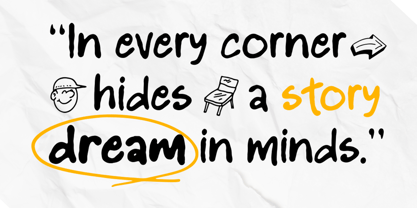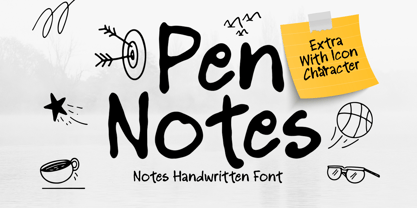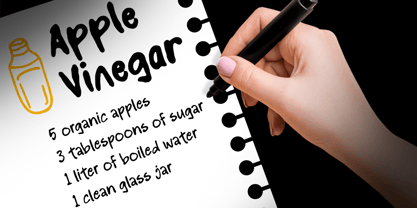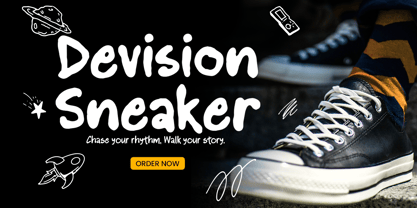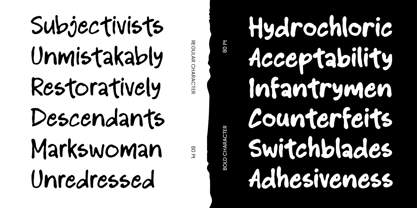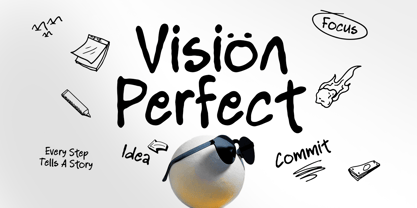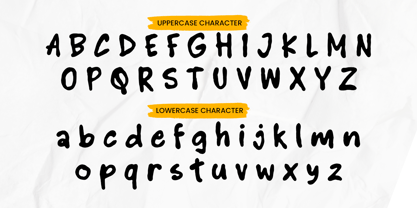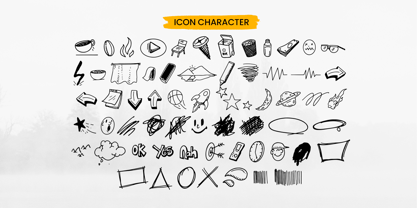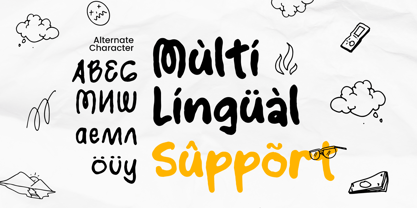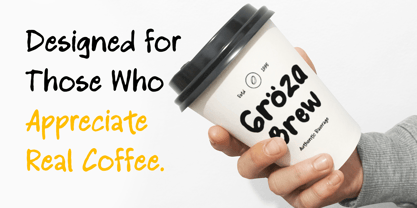
Pen Notes is a notes handwritten font designed to feel natural, neat, and personal—like writing with your favorite pen. With a smooth, easygoing flow and friendly letterforms, this typeface brings a warm handwritten vibe that stays clear and readable in everyday layouts.
Perfect for journaling, planners, study notes, classroom materials, printable templates, and stationery branding, Pen Notes works beautifully on notebook covers, stickers, labels, quotes, and social media content. Its casual charm makes it ideal for cozy design aesthetics, creative shops, and lifestyle brands that want typography to feel approachable and human.
Whether you’re creating digital planners, crafting cute packaging, or designing content for notes and captions, Pen Notes adds a tidy handwritten touch that keeps your message sweet, simple, and memorable.
Pen Notes – Handwritten Notes Font Features
Neat handwritten letterforms with a natural pen-written feel
Perfect for notes, journals, planners, and stationery designs
Great for stickers, labels, quotes, and printable templates
Friendly style for classroom materials and cozy branding
Includes uppercase, lowercase, numerals, and punctuation
Clear readability for both digital screens and print output
OpenType features for flexible creative layouts
Keep it cozy and personal with Pen Notes—made for handwritten notes that feel effortlessly real. 🖊️✨
Pen Notes